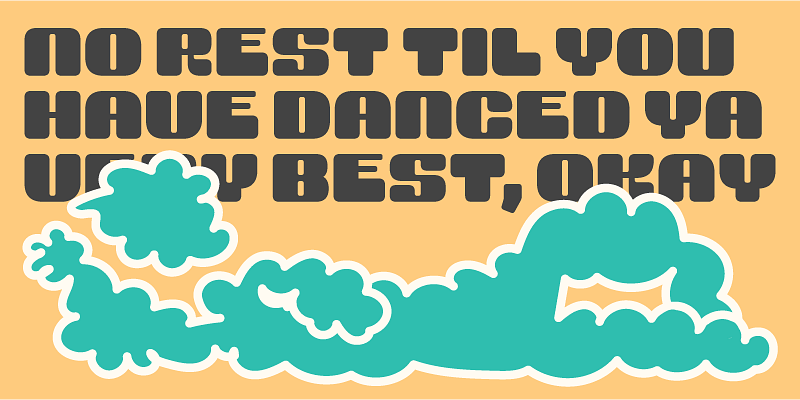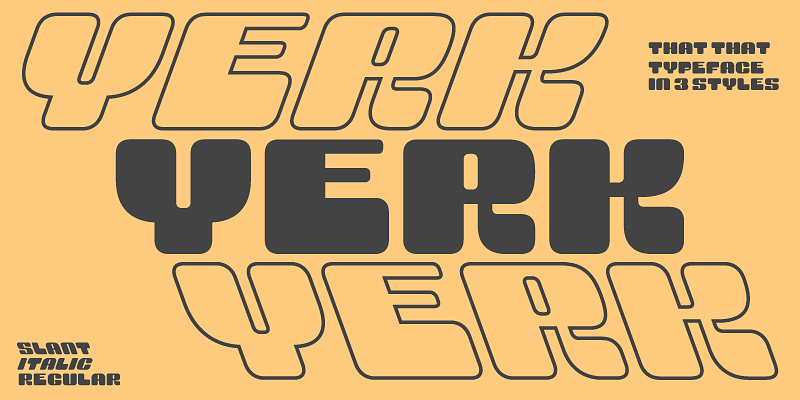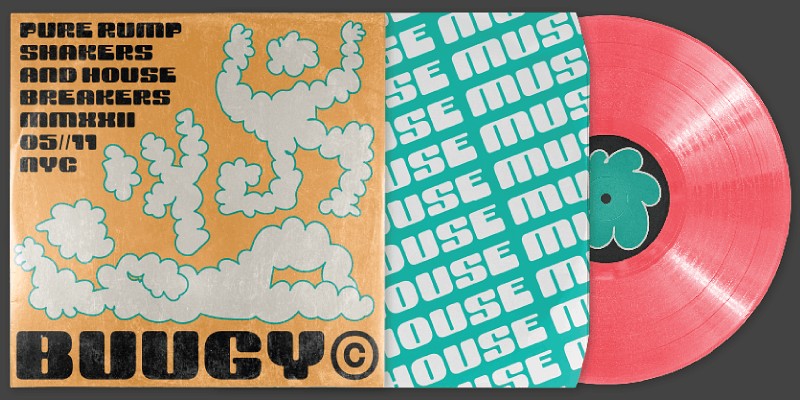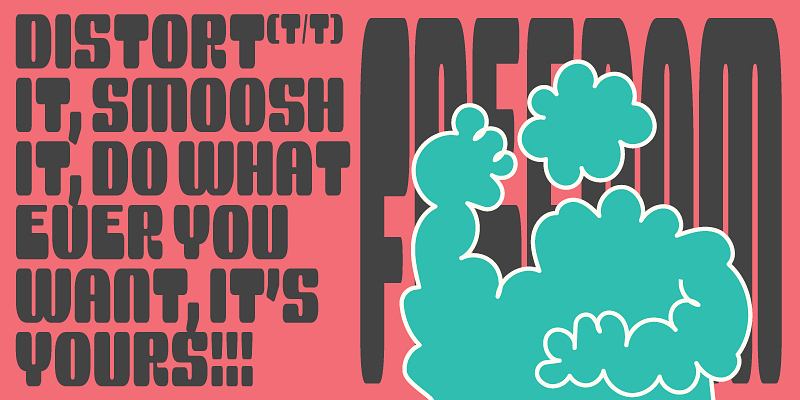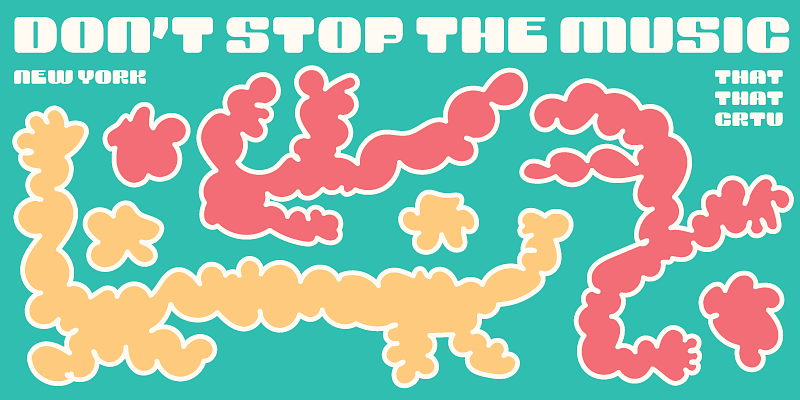
Yerk is a modern Y2K inspired font. This retro font comes in 3 styles regular italic and slanted. Its bold weight, squared-off letters with slightly rounded corners make it perfect for adding big impact and a bit of personality to your design.